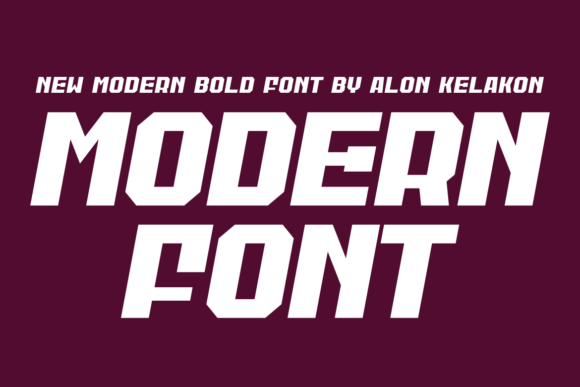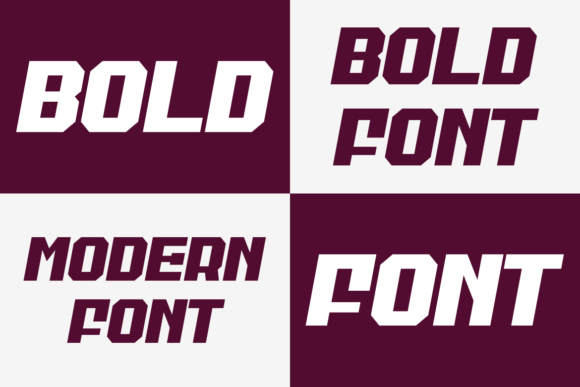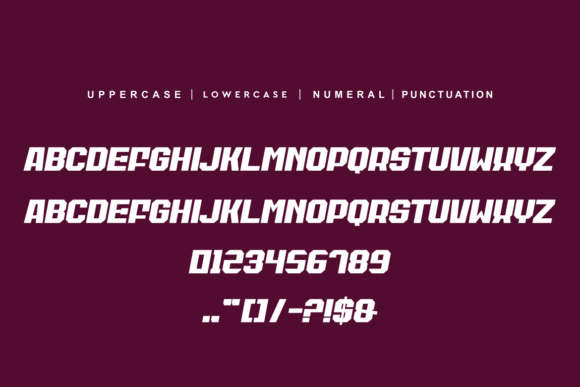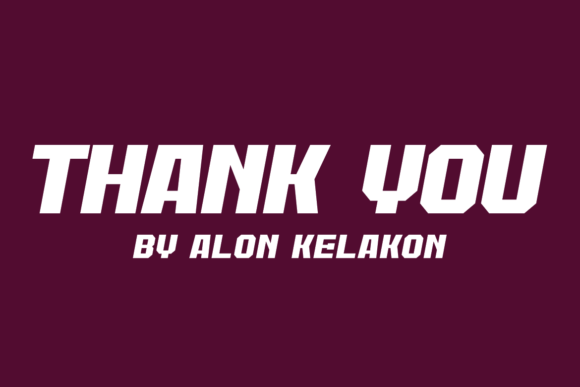
Introduction to Mumed Ramiker Font
Mumed Ramiker is a strong and masculine sans serif font.
Its geometrical-shaped characters are perfect for adding a daring and powerful accent to your designs .
Key Features of Mumed Ramiker Font